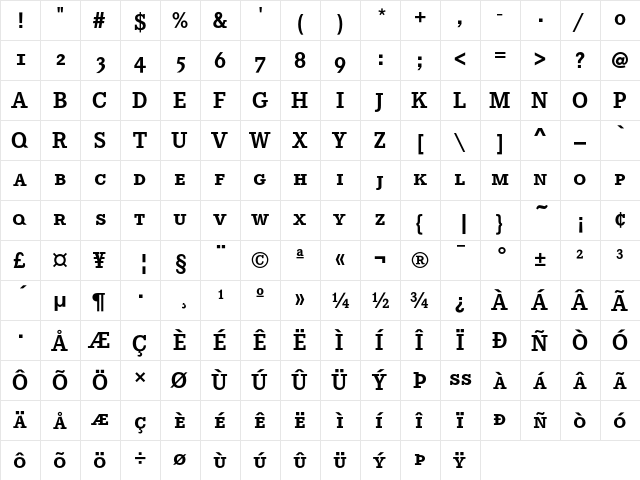
CorporateESC Bold Font Preview
CorporateESC Bold
Design Context for CorporateESC Typeface
CorporateESC is a composed and adaptable typeface that performs quietly and consistently across a wide range of design contexts. Its bold stroke weight gives it real presence on the page.